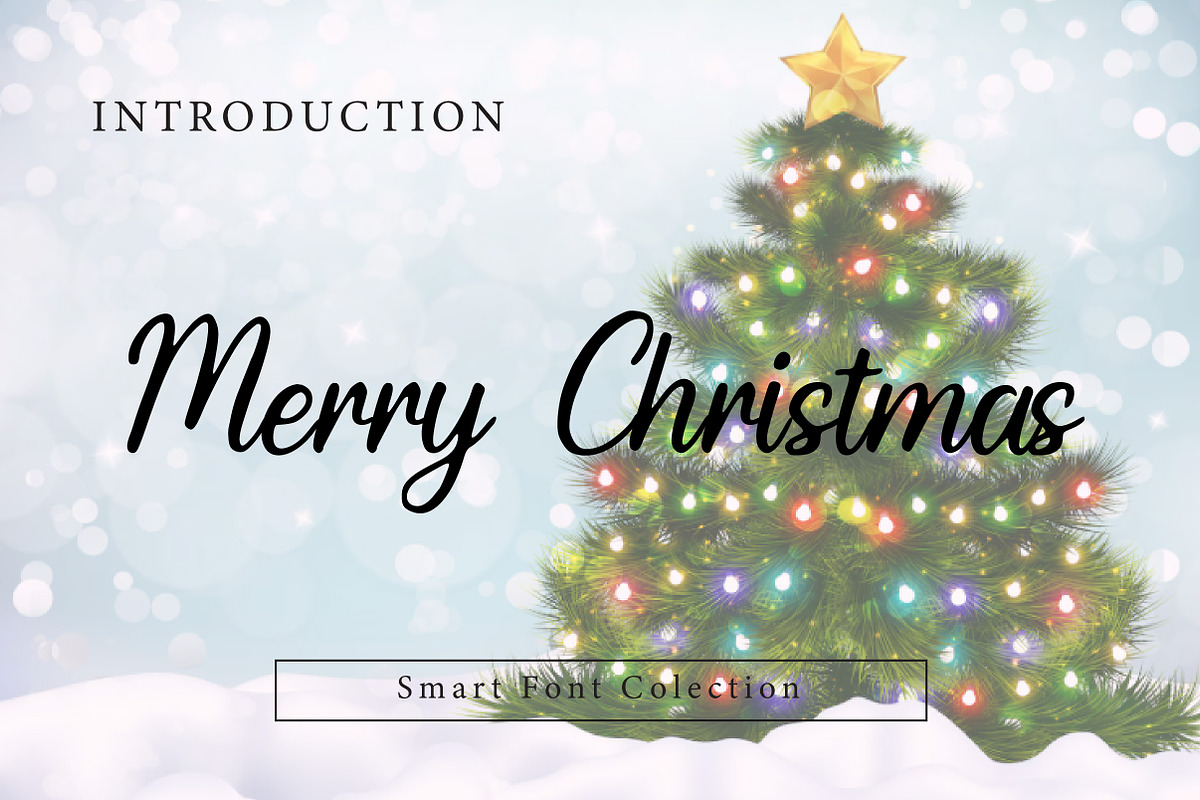
Merry Christmas
Merry Christmas is a warm, elegant handwritten script typeface designed to capture the joyful and festive spirit of the holiday season. With its smooth flowing strokes, natural handwriting style, and charming curves, this font feels personal, cheerful, and inviting. Merry Christmas is perfect for holiday cards, Christmas greetings, seasonal branding, gift tags, invitations, social media graphics, posters, and festive packaging. Its balanced script style ensures excellent readability while delivering a cozy, celebratory feel across both digital and print designs.